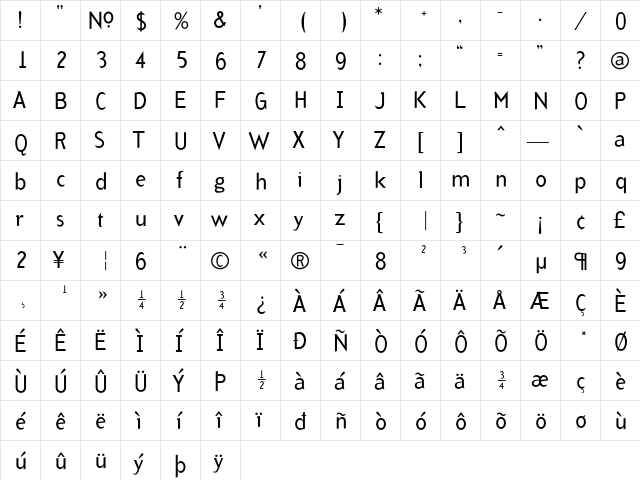
Arb Percent
Design Context for Arb Typeface
Arb takes a measured approach to typography — its balanced proportions and neutral character make it a reliable workhorse for both digital and print work.